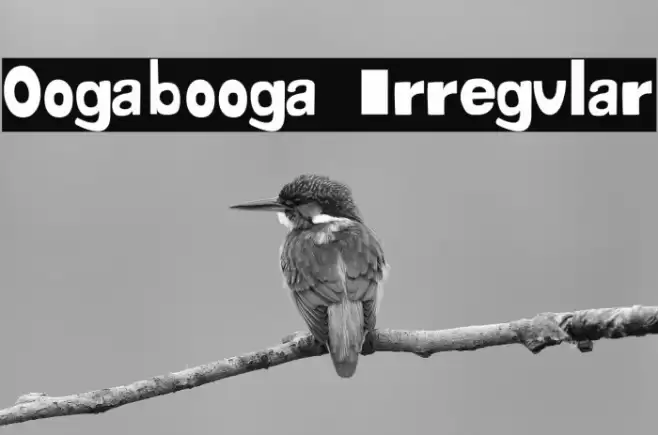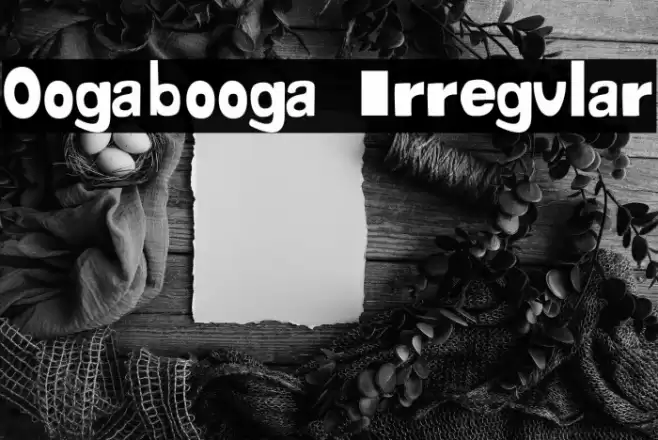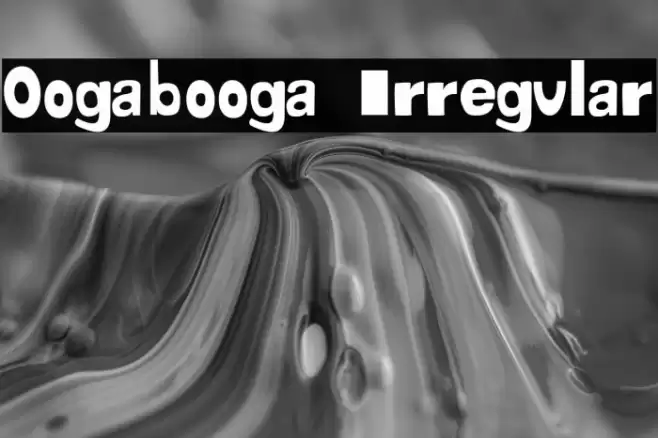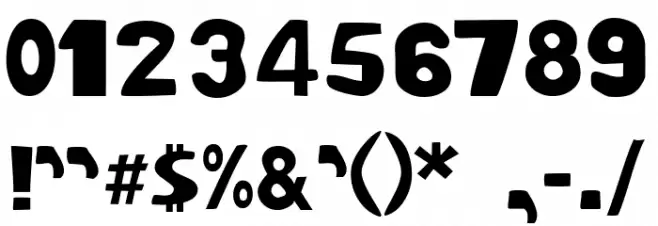
Oogabooga Irregular Font
Oogabooga Irregular Description
This font features an irregular and playful design, characterized by its uneven and quirky letterforms. The uppercase and lowercase letters exhibit a whimsical style with varying stroke thicknesses, creating a dynamic and lively appearance. The numbers and special characters maintain this playful aesthetic, adding to the overall charm. The font's unique style makes it stand out, offering a sense of fun and creativity. Its irregularity is consistent throughout, providing a cohesive yet unconventional look.
A playful and irregular font with quirky, uneven letterforms from Uncategorized fonts.
- Proposed Projects: Ideal for children's books, playful branding, creative posters, and informal invitations.
- Overall Style: Playful
- Use Case: Logos, Posters, Creative projects